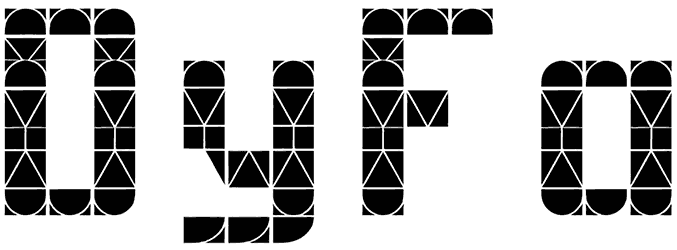
Led Panel Station On Font
Choosing the proper font for your digital schemes might seem difficult, but with the aid of this techno font, Led Panel Station On, you can bring creativity to your graphics and accomplish a lot of entertaining outcomes.
This scoreboard font, with its pinto face, does wonders for any display that needs to draw more attention. This dotted font is visually appealing to include in many websites, games, and digital apps. If you’re looking for further details, head over to RB.
Police inspirée des anciens panneaux d’affichage de gares et aéroports.
Existe en version ON, et en version OFF.
Idéal Wordart, affiche…
Font inspired by old station and airport billboards.
Available in ON version, and in OFF version.
Ideal Wordart, poster …
Designed by: Pierre Boutet